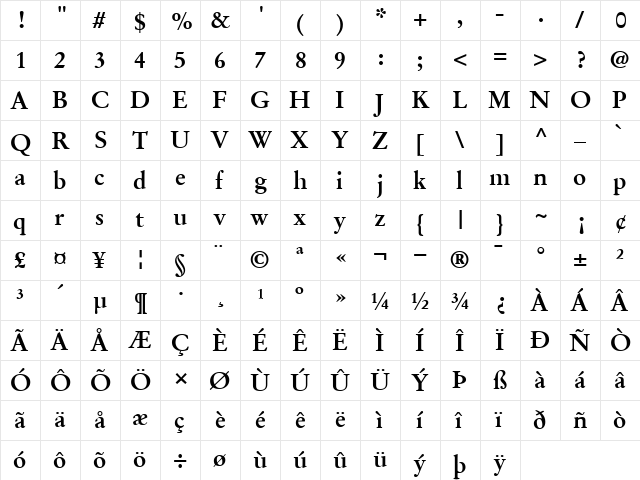
StempelGaramond Bold
Design Context for StempelGaramond Typeface
StempelGaramond is a composed and adaptable typeface that performs quietly and consistently across a wide range of design contexts. The heavy weight commands attention and anchors typographic hierarchies.
Pro Tip: Use StempelGaramond in both headline and body roles to test its range before committing to a single application.